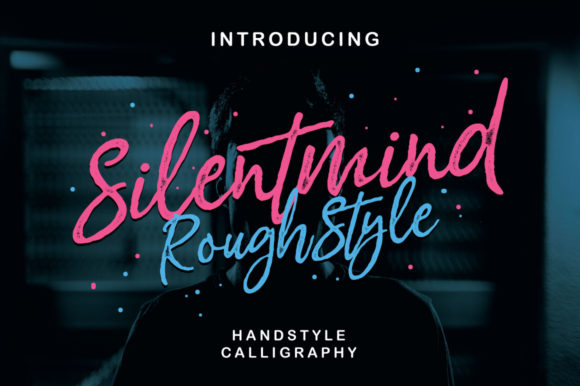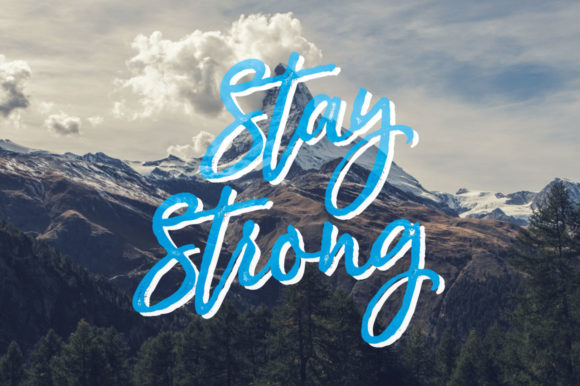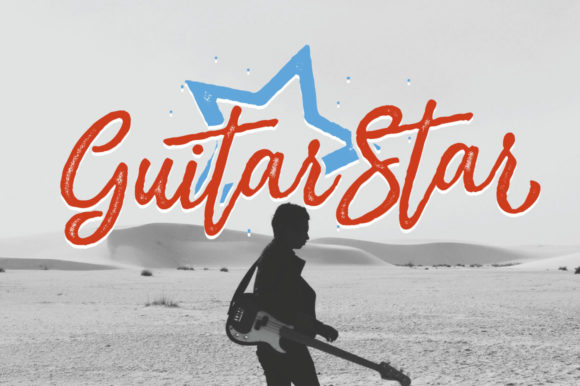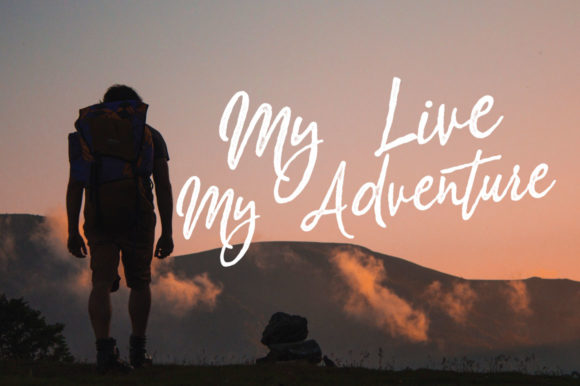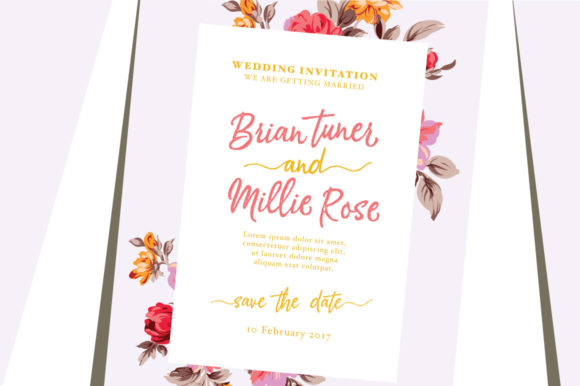
Silentmind Font
About Silentmind Font
The Silentmind is a modern calligraphy script. It has amazing characters & a multitude of letter variations to make that perfect and unique design.
It’s ideal for a logo, a name tag, handwritten quotations, product packaging, goods, social media and greeting cards!